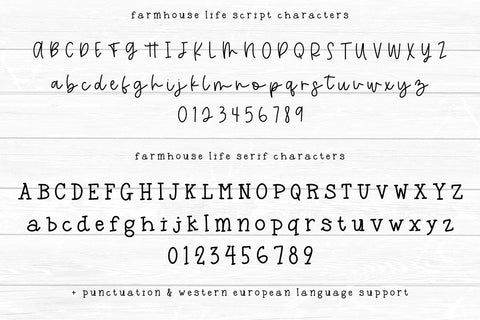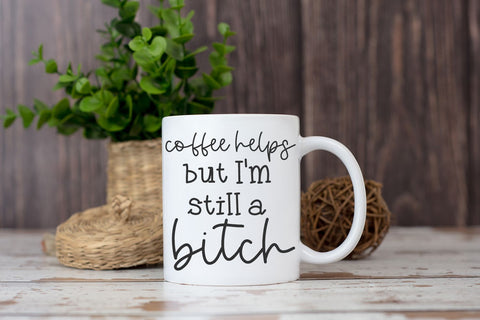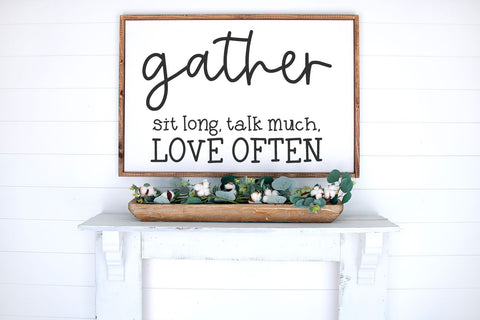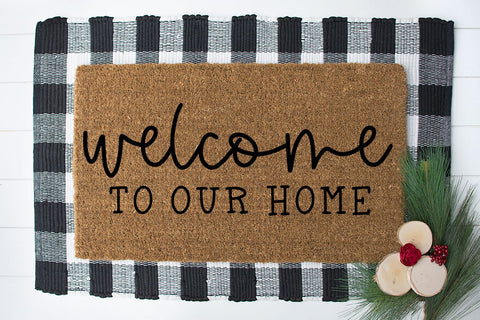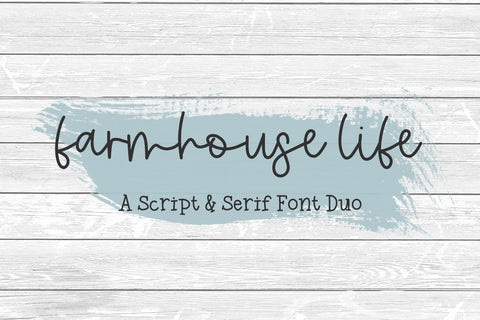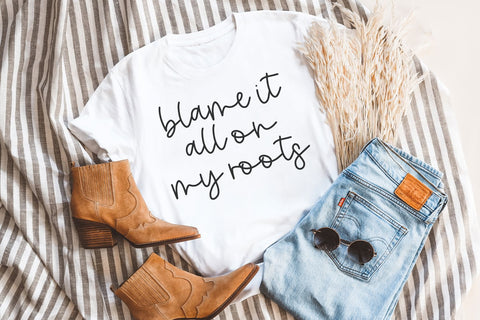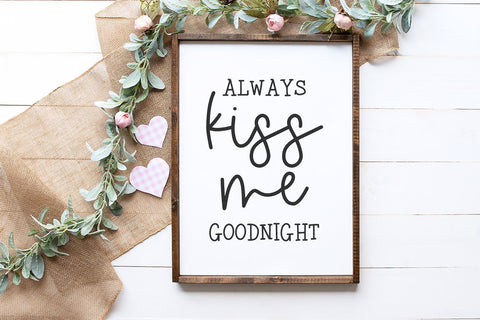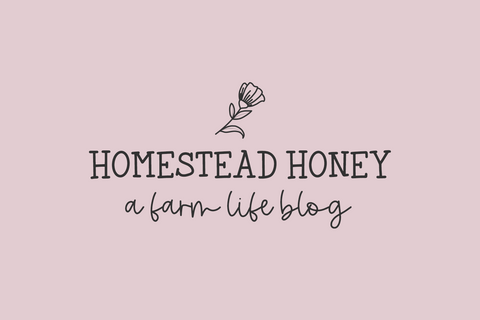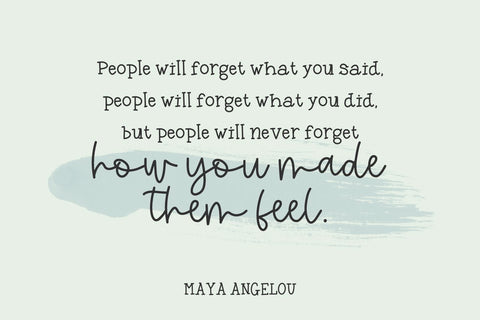
Farmhouse Life Duo
Enjoy Farmhouse Life, a new handlettered script and serif font duo.
Farmhouse Life is best for:
- feminine, crafty projects with your Cricut or Silhouette machine, or your SVG design business
- farmhouse decor and crafts
- logos + branding
- website design + website accents, blog design
- clean print design, like magazines + flyers
- header elements that need handwritten touch
- quote graphics for social media
- feminine graphic tee shirt design & other apparel
Farmhouse Life Script & Serif both includes
- full upper + lowercase characters
- numbers + punctuation
- Western European Language Support
- PUA-encoding